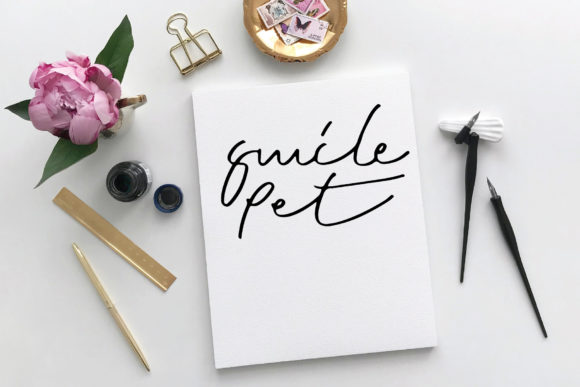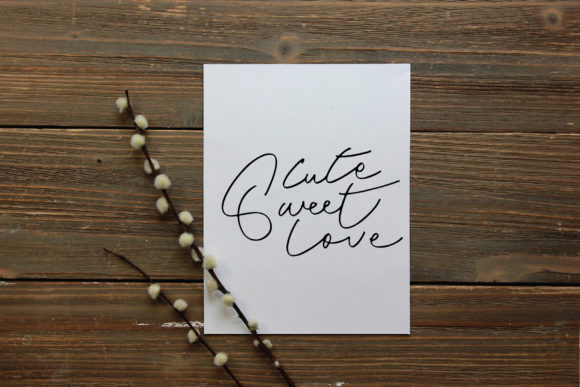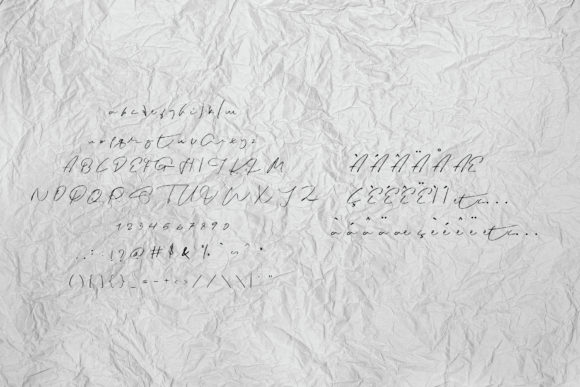
Introduction to Scootish Cat Font
Scootish Cat is a playful, light and incredibly romantic font with a unique twist.
Ignite your creativity with its authentic charm .
Key Features of Scootish Cat Font
Why Choose Scootish Cat Font?
Scootish Cat Font offers exceptional quality and versatility, making it a valuable addition to your design toolkit. Whether you’re creating for personal projects or commercial use, Scootish Cat Font delivers professional results.